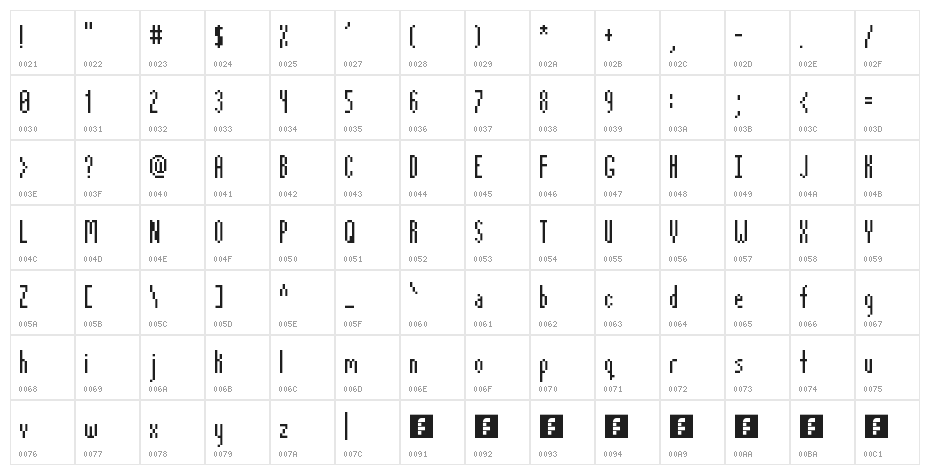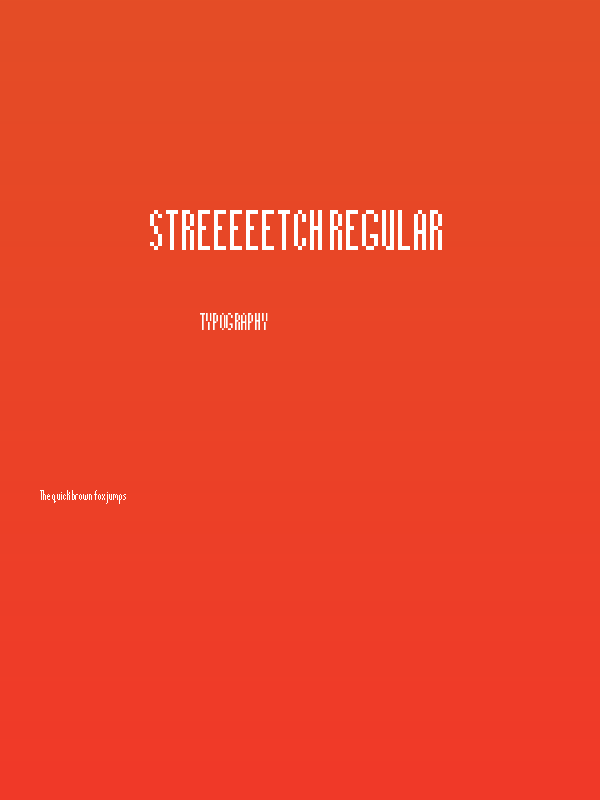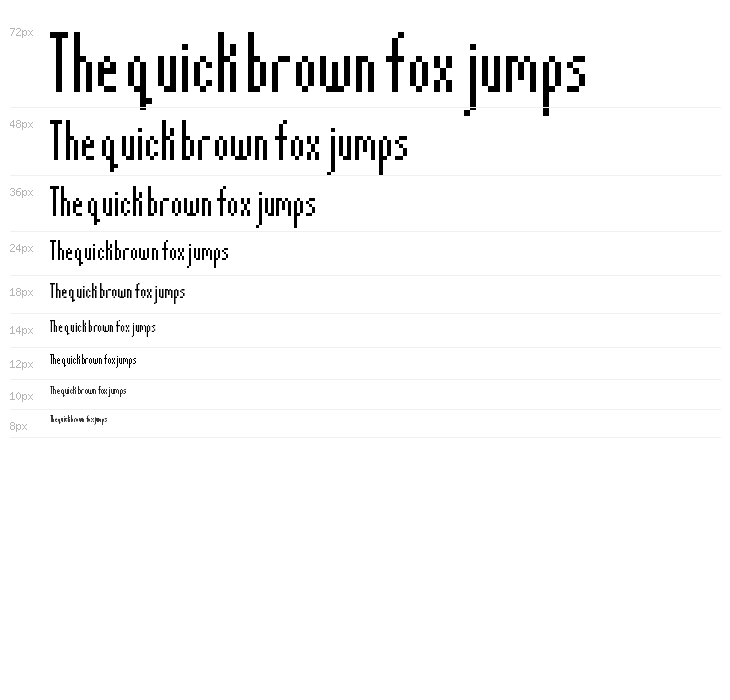
Streeeeetch Regular Font
Streeeeetch Regular Description
This font features a distinctly pixelated and digital aesthetic, reminiscent of early computer and video game graphics. The characters are composed of blocky, square shapes that give it a retro, nostalgic feel. Each letter and number is uniformly structured, maintaining a consistent height and width, which contributes to its monospaced appearance. The uppercase and lowercase letters are clearly defined, with the lowercase being slightly smaller in height. The font's geometric style makes it highly legible, even at smaller sizes, and its unique design adds a playful, tech-inspired touch to any project.
| Overall Style | Retro, Digital |
| Use Case | Logos, Headlines, Digital Art |
| Proposed Projects | Ideal for video game design, tech-themed posters, retro digital art, and coding interfaces. |